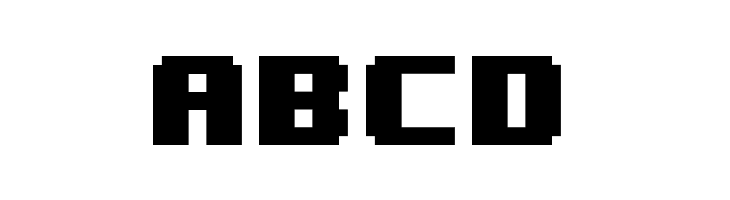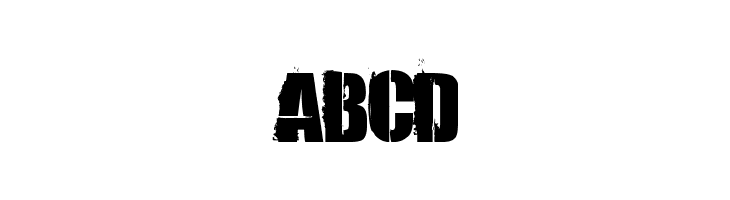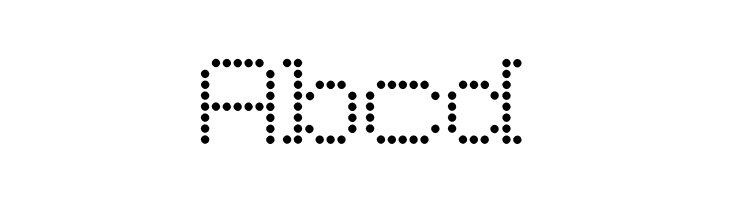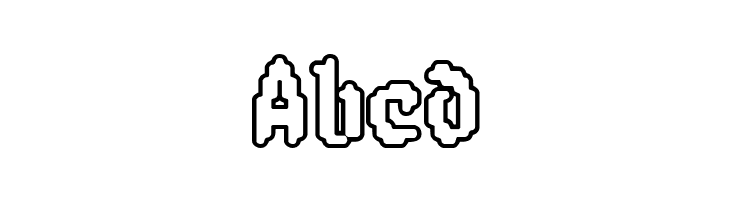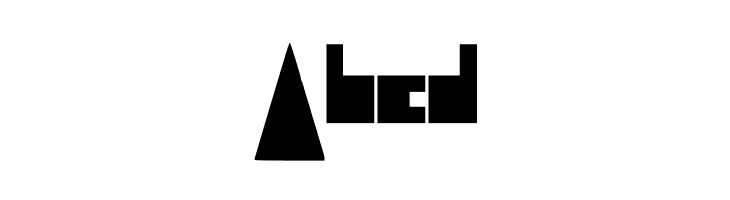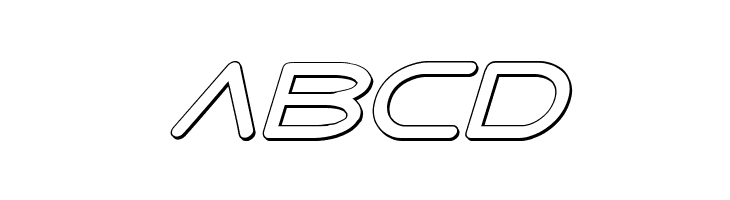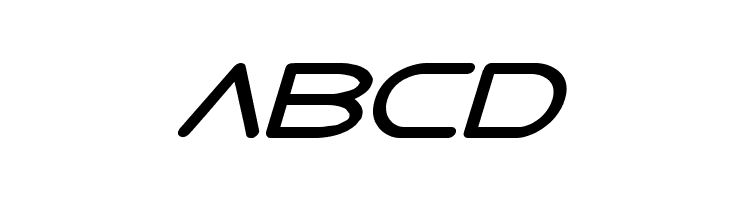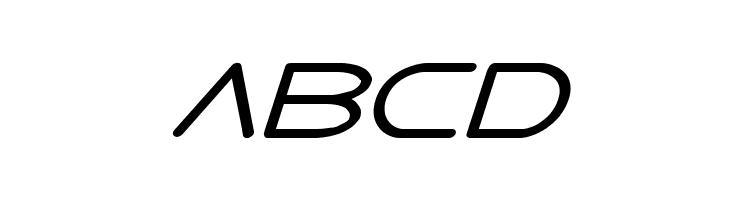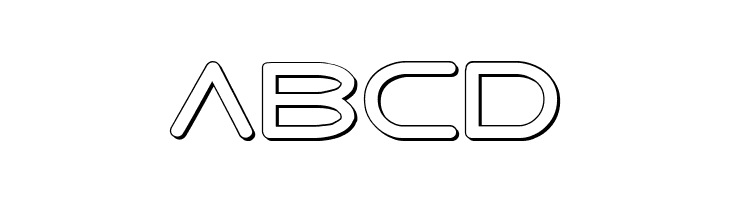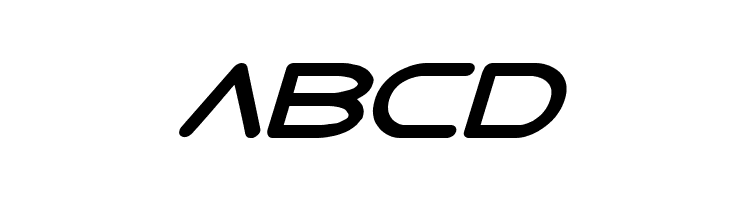
A bold, futuristic font with geometric and stencil-like elements.
A bold, italicized font with a futuristic and geometric design.
A pixelated, monospaced font with a retro digital aesthetic.
A pixelated, retro-style font inspired by classic 8-bit video games.
A retro, pixelated font inspired by classic 8-bit video games.
A pixelated, outlined font inspired by classic 8-bit video games.
A bold, pixelated font with an 80s cyberpunk vibe.
A bold, textured serif font with a grunge aesthetic and italic influence.
A playful, bubble-like font with a hand-drawn, 1980s-inspired style.
A bold, distressed font with a rugged, grunge aesthetic.
A pixelated, retro-style font inspired by early digital displays.
A retro, pixelated font with a bold, blocky design ideal for vintage digital themes.
A pixelated, retro font inspired by early digital graphics.
A bold, pixelated blackletter-style font with a digital retro feel.
A dot matrix style font with a retro digital display aesthetic.
A pixelated, monospaced font with a retro digital aesthetic.
A bold, distressed industrial font with a rugged, grunge aesthetic.
A futuristic, geometric font with angular and curved elements, perfect for modern designs.
A futuristic, geometric font with a 3D outline effect.
A futuristic, 3D outlined italic font with a geometric design.
A futuristic, geometric font with angular and rounded elements.
A bold, italic, futuristic font with rounded characters and a sleek design.
A futuristic, geometric font with bold, rounded characters and minimal contrast.
A futuristic, bold italic font with a dynamic and geometric style.
A futuristic italic font with geometric precision and dynamic style.